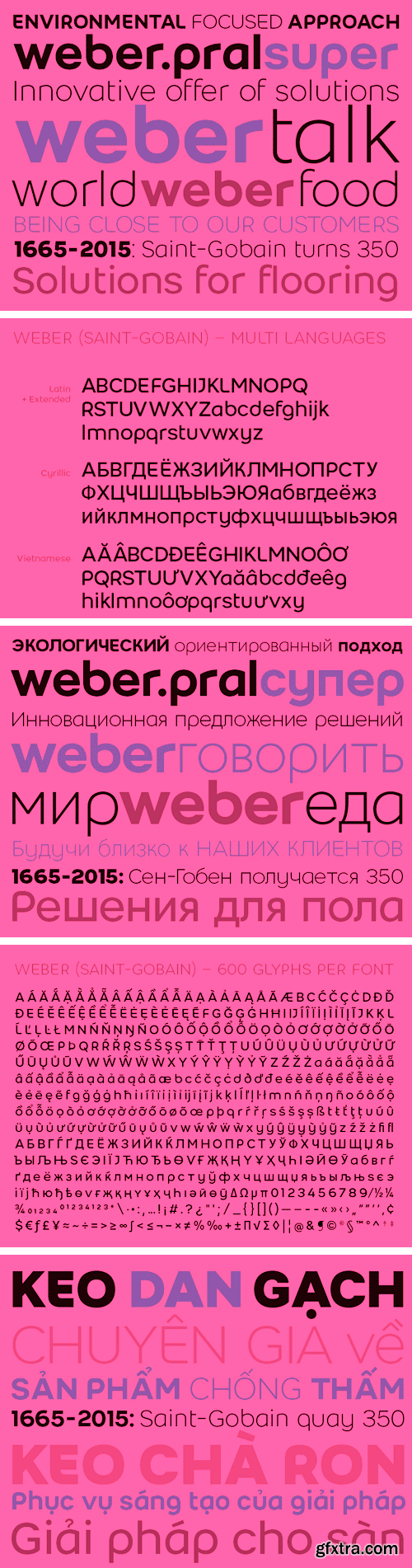
Free Sans Serif Font Low X Height | Premium Fonts
Free and Premium Quality Fonts - Best Premium FontsSize poster display headlines text small text captions. On lower resolution digital displays fine details like serifs may disappear or appear too large. Sans serif fonts have become the most prevalent for display of text on computer screens.
Sans serif fonts as you might.
Sans serif font low x height. The spartan classified font which is designed to be legible at very small sizes has a much larger x height than the futura typeface it was patterned after which was intended for text composition within a normal point size range. They are often used to convey simplicity and modernity or minimalism. Text typefaces that incorporate large x heights generally do so in an attempt to increase legibility and readability. We have 80 free sans serif high x height fonts to offer for direct downloading 1001 fonts is your favorite site for free fonts since 2001.
Weight hairline thin light regular medium bold. Sans serif fonts tend to have less stroke width variation than serif fonts. We have 4 free low x height sans serif light fonts to offer for direct downloading 1001 fonts is your favorite site for free fonts since 2001. General serif sans serif italic letterbats initials small caps.
We have 81 free high x height sans serif fonts to offer for direct downloading 1001 fonts is your favorite site for free fonts since 2001. Sans serif typefaces with an unusually small x height and long ascenders. Download it at font fabric. Curved letters such as a c e m n o r s and u tend to exceed the x height slightly due to overshoot.
We have 10 free sans serif low x height fonts to offer for direct downloading 1001 fonts is your favorite site for free fonts since 2001. With its low x height its super easy to read even from a long distance. As its name suggest simplifica by kaiwa is a clean neat and simple font. We have 249 free low x height fonts to offer for direct downloading 1001 fonts is your favorite site for free fonts since 2001.
In typography the x height or corpus size is the distance between the baseline and the mean line of lower case letters in a typefacetypically this is the height of the letter x in the font the source of the term as well as the letters v w and z. The uniform line width of this condensed sans serif font lends it excellent.